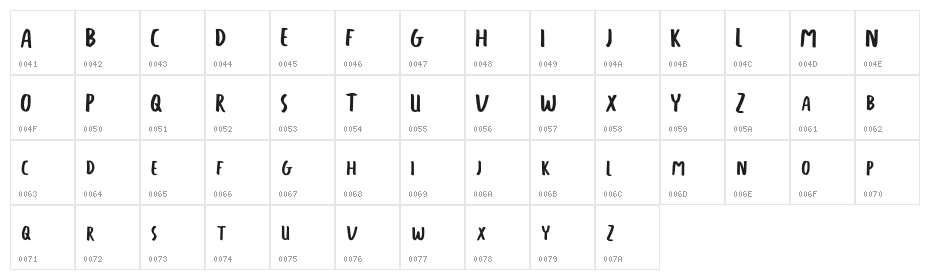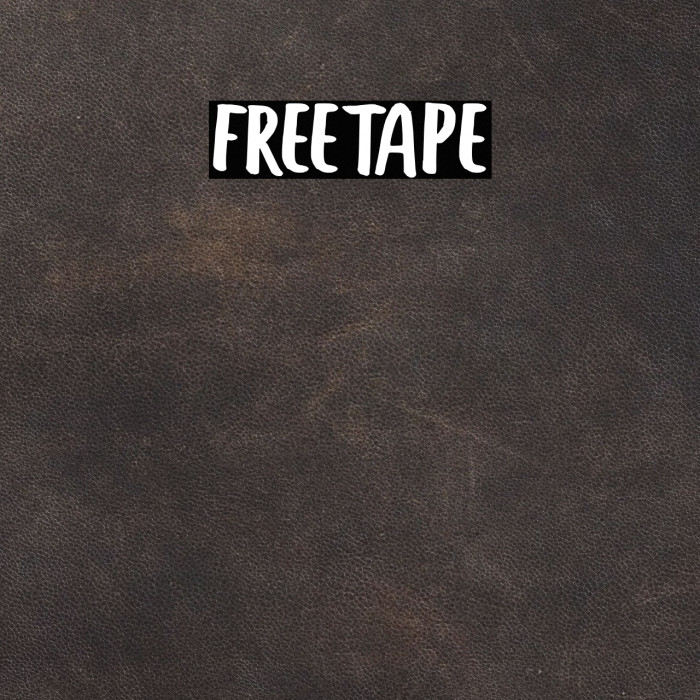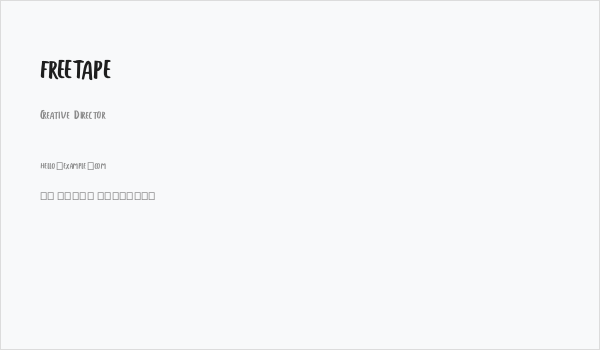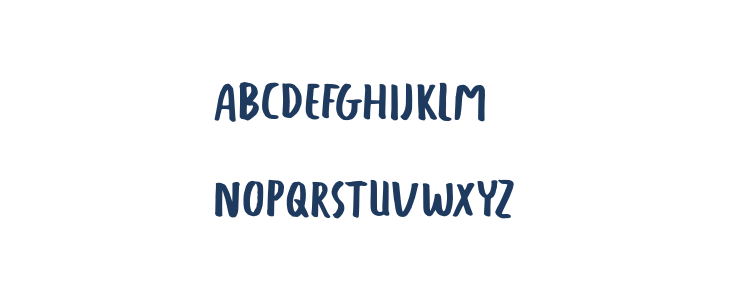
FREETAPE Font
FREETAPE Description
This font features a playful and bold handwritten style, characterized by its smooth, rounded edges and slightly irregular strokes that give it a casual, friendly appearance. The uppercase letters are consistent in height, while the lowercase letters maintain a uniform baseline, enhancing readability. The font lacks special characters and numbers, focusing solely on the alphabet. Its design is reminiscent of hand-painted signage, making it ideal for projects that require a personal touch. The overall look is both approachable and versatile, suitable for a variety of creative applications.
| Proposed Projects | Ideal for greeting cards, children's books, playful branding, and DIY projects. |